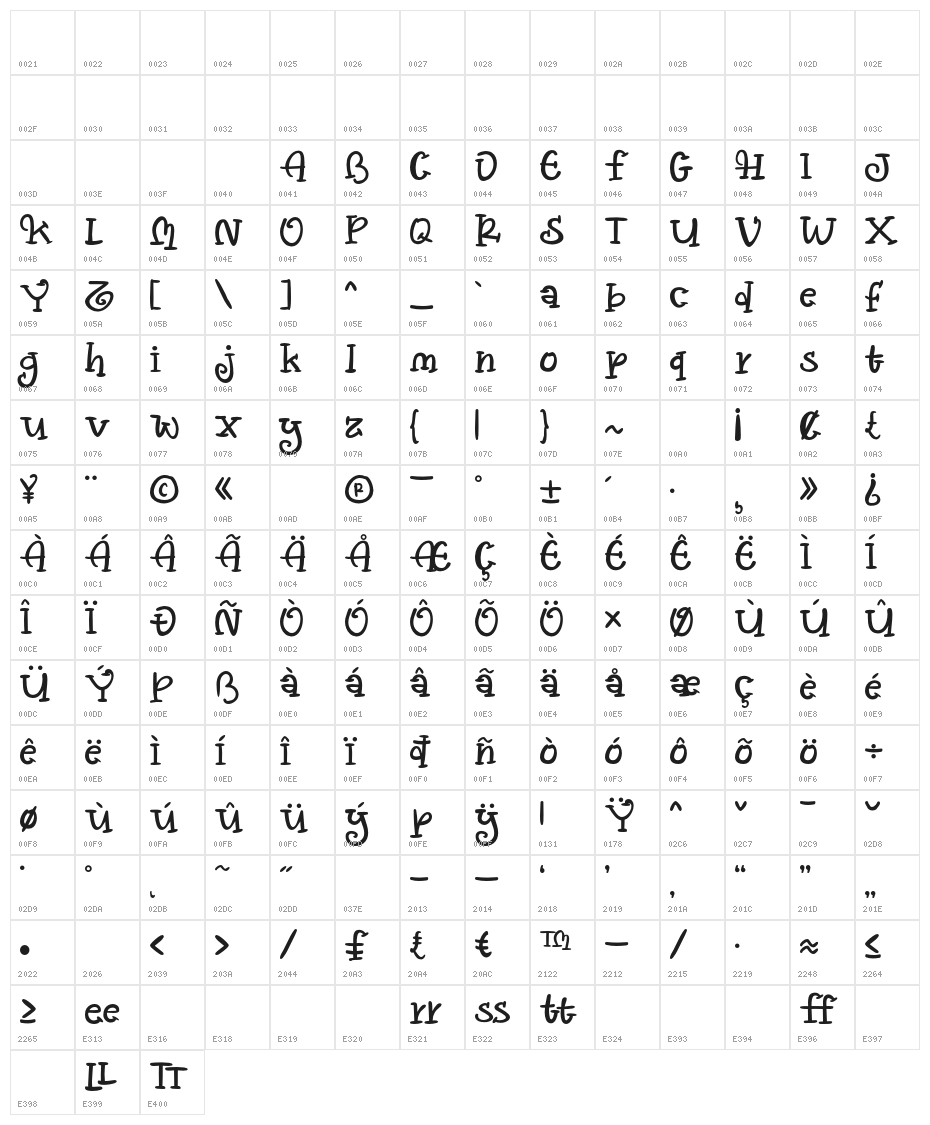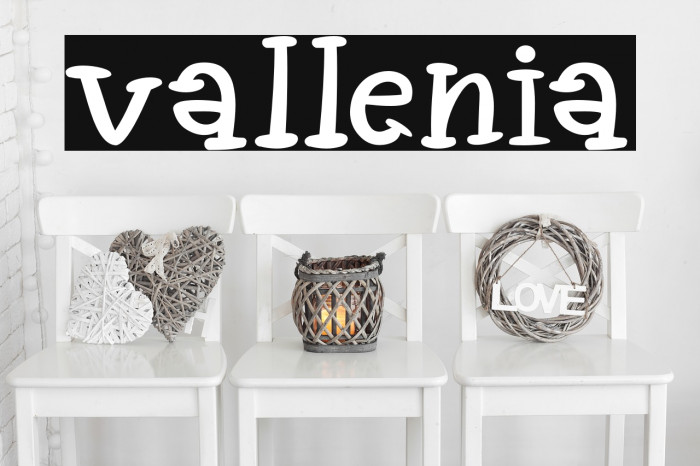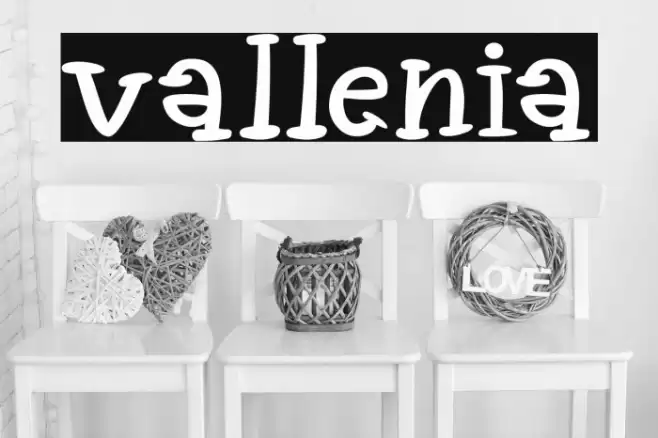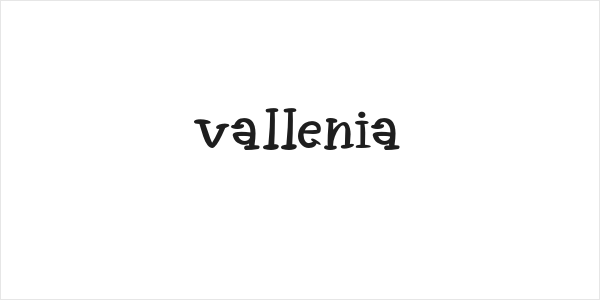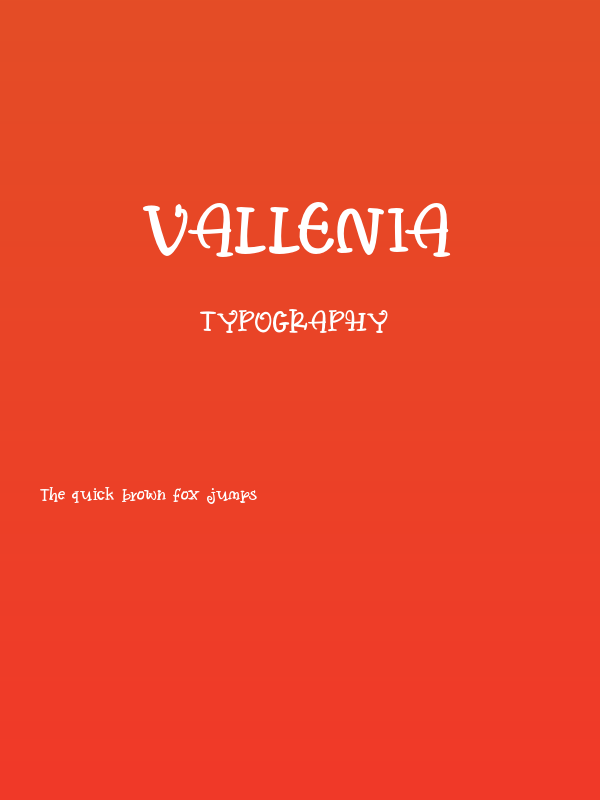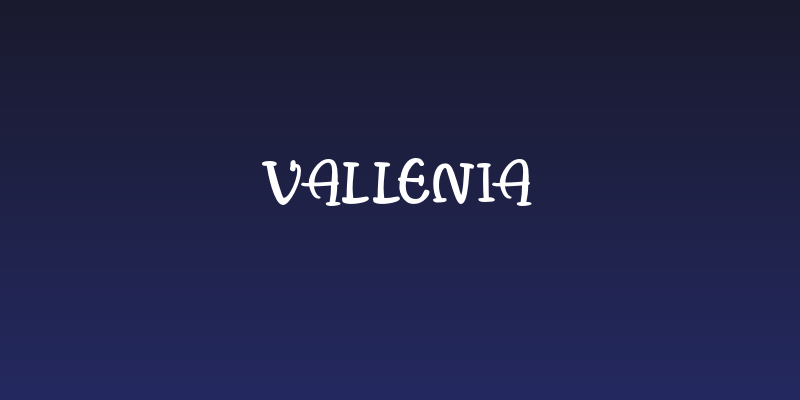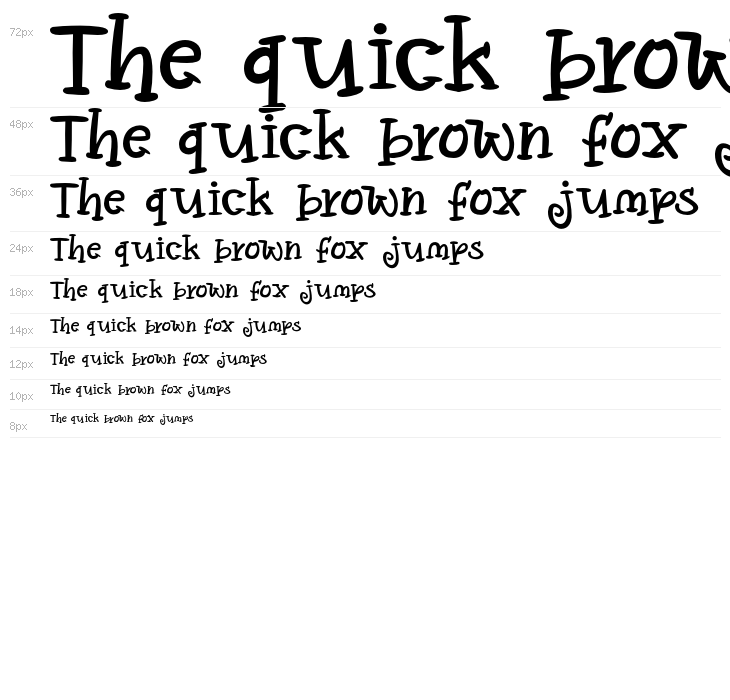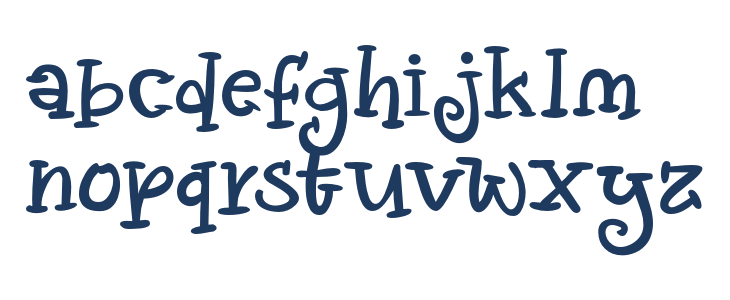
vallenia Font
vallenia Description
This font features a playful and whimsical design, characterized by its curly and rounded letterforms. The uppercase letters exhibit a unique blend of boldness and elegance, with distinct loops and swirls that add a touch of creativity. The lowercase letters maintain this playful theme, offering a consistent style throughout. The numbers and special characters are equally decorative, ensuring a cohesive look across all text elements. This font's distinctive style makes it ideal for projects that require a fun and engaging visual appeal.
| Overall Style | Whimsical, Playful |